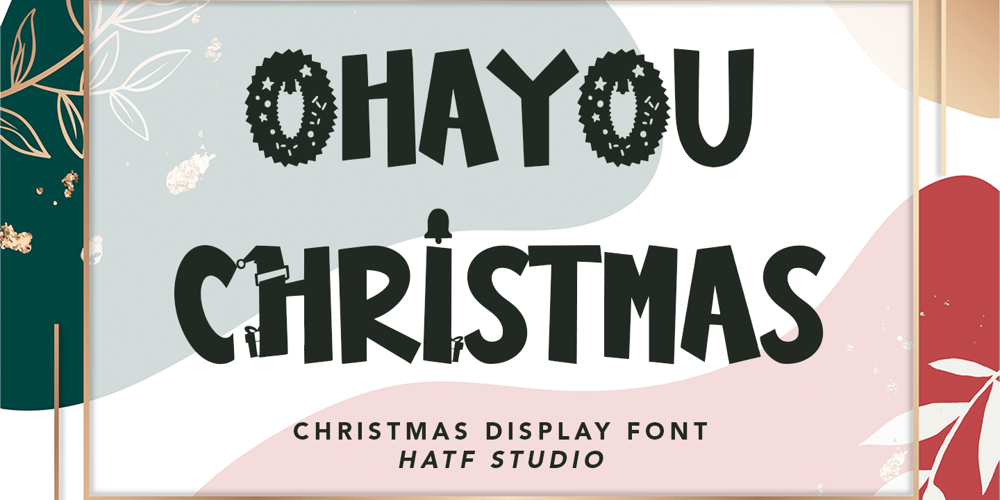
Ohayou Christmas
Ohayou Christmas font
Ohayou Christmas Font Family was designed by Asep Rendi and published by Hatftype. Ohayou Christmas contains 1 styles and family package options. Ohayou Christmas – Christmas Display Font is a font with distinctive handwritten characters perfect for branding projects, logos, wedding designs, media posts, advertisements, product packaging, product designs, labels, photography, watermarks, invitations, stationery, and any project who need handwritten dishes.Features : • Character Set A-Z • Numerals & Punctuations (OpenType Standard) • Accents (Multilingual characters) • LigatureMultilingual Support : Afrikaans, Albanian, Asu, Basque, Bemba, Bena, Catalan, Chiga, Cornish, Danish, English, Estonian, Faroese, Filipino, Finnish, French, Friulian, Galician, German, Gusii, Icelandic, Indonesian, Irish, Italian, Kabuverdianu, Kalenjin, Kinyarwanda, Low German, Luo, Luxembourgish, Luyia, Machame, Makhuwa-Meetto, Makonde, Malagasy, Malay, Manx, Morisyen, North Ndebele, Norwegian Bokmål, Norwegian Nynorsk, Nyankole, Oromo, Portuguese, Romansh, Rombo, Rundi, Rwa, Samburu, Sango, Sangu, Scottish Gaelic, Sena, Shambala, Shona, Soga, Somali, Spanish, Swahili, Swedish, Swiss German, Taita, Teso, Vunjo, ZuluThere it is! I really hope you enjoy it.